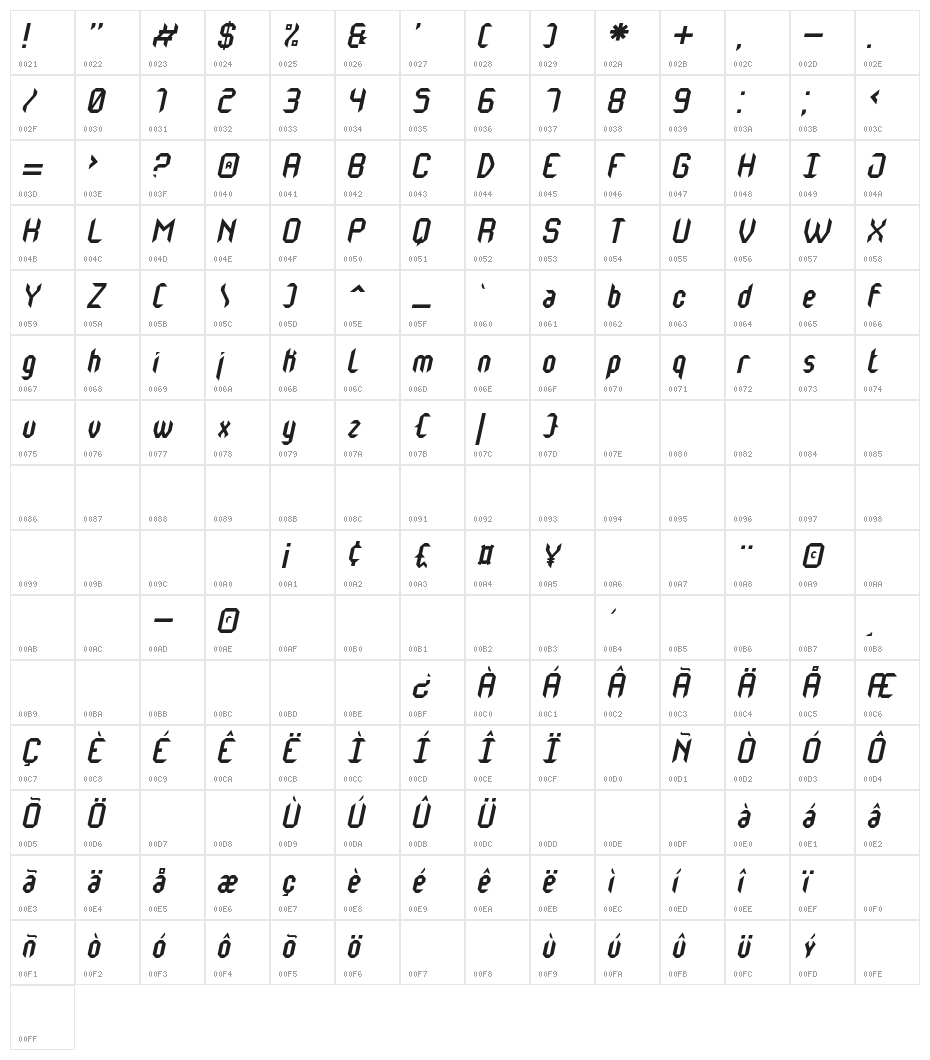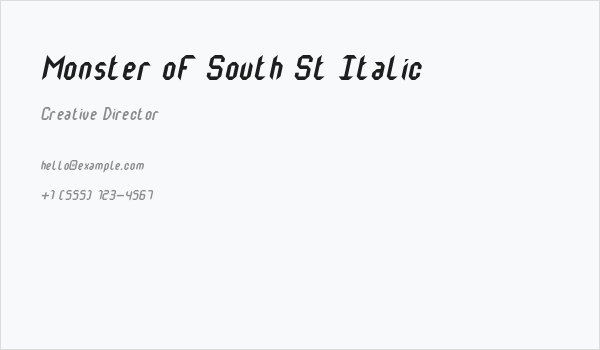
Monster oF South St Italic Font
Monster oF South St Italic Description
This font features a bold, angular design with a strong geometric influence, characterized by sharp edges and a dynamic slant that gives it an italicized appearance. The uppercase and lowercase letters maintain a consistent style, with a slightly condensed form that enhances its modern and edgy look. The numerals and special characters follow the same angular theme, ensuring uniformity across all glyphs. Its unique style makes it stand out, suitable for projects that require a bold and distinctive visual impact.
| Proposed Projects | Ideal for branding, posters, and headlines where a strong, modern aesthetic is desired. |